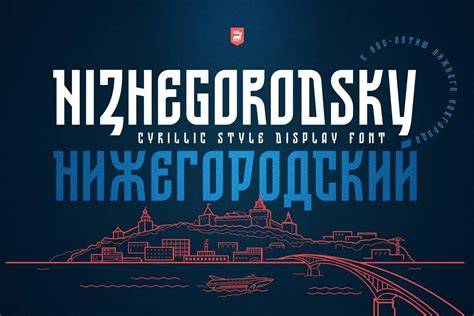
Making The Most Of Russian Fonts In 2023
Russian fonts have been a popular choice for some time now in the world of design. From typography to logos, they have been used to create interesting and eye-catching visuals. But with the introduction of new technology, such as digital displays, the possibilities for using Russian fonts are even greater. In 2023, businesses and designers are taking full advantage of the unique features of these fonts to create stunning visuals that stand out from the crowd.
The Benefits of Russian Fonts
Russian fonts offer a range of advantages over other font types. For starters, they are highly legible and easy to read, even at small sizes. They also have a timeless and classic look that can be used to create a sense of prestige or sophistication. Furthermore, they are available in a wide variety of styles and weights, making them incredibly versatile and suitable for any type of design project.
Choosing a Suitable Font
Selecting the right font is essential for any design project. When it comes to Russian fonts, there is an almost endless range of choices available. It is important to consider factors such as legibility, contrast, and tone when selecting a font. It is also beneficial to experiment with different font combinations to create interesting and unique visuals.
Using Digital Displays to Enhance Fonts
Digital displays are becoming increasingly popular in 2023, and they offer a unique opportunity for businesses and designers to use Russian fonts in a more creative way. With the help of digital displays, Russian fonts can be used to create dynamic visuals that capture the attention of viewers. Digital displays allow for the manipulation of font size, color, and spacing, enabling users to create stunning visuals that are sure to make a lasting impression.
Creative Uses for Russian Fonts
Russian fonts can be used in a variety of creative ways. They are a great choice for logos, typography, and print designs. They can also be used to create interesting visuals for websites, social media posts, and even videos. With the help of digital displays, businesses and designers can take Russian fonts to the next level by creating dynamic visuals that stand out from the crowd.
Russian fonts are incredibly versatile and can be used in a variety of creative ways to create stunning visuals in 2023. With the help of digital displays, the possibilities are even greater. Whether you are creating a logo, typography, or print design, Russian fonts are an excellent choice and can be used to create eye-catching visuals that will make a lasting impression.